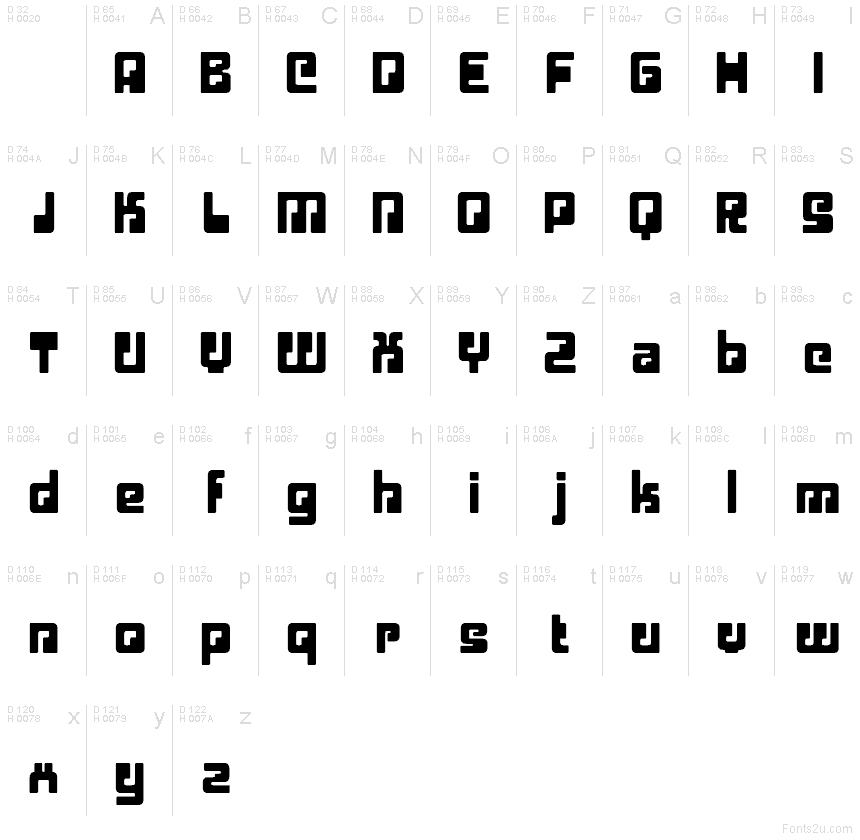
CS Saturn Regular Demo
CS Saturn font by Craft Supply Co. is a free groovy display font. Built around pillowy rectangles and squared inner cutouts, it turns every letter into a smooth, modular block with a satisfying, rubbery heft. The rounded outer corners keep it friendly while the geometric notches add a crisp, futuristic snap—like 70s sci‑fi carved in soft vinyl—so headlines lock together with an even, thumpy rhythm.
Using CS Saturn, you’ll get standout results on event posters, music covers, gaming logos, tech merchandise, packaging, and bold signage. Its compact spacing and consistent stroke weight make big statements read fast from a distance. For balance, pair this free font with a light geometric sans for body text, or add a touch of tracking when setting it extra large.